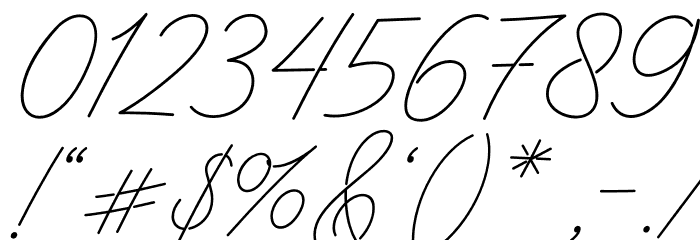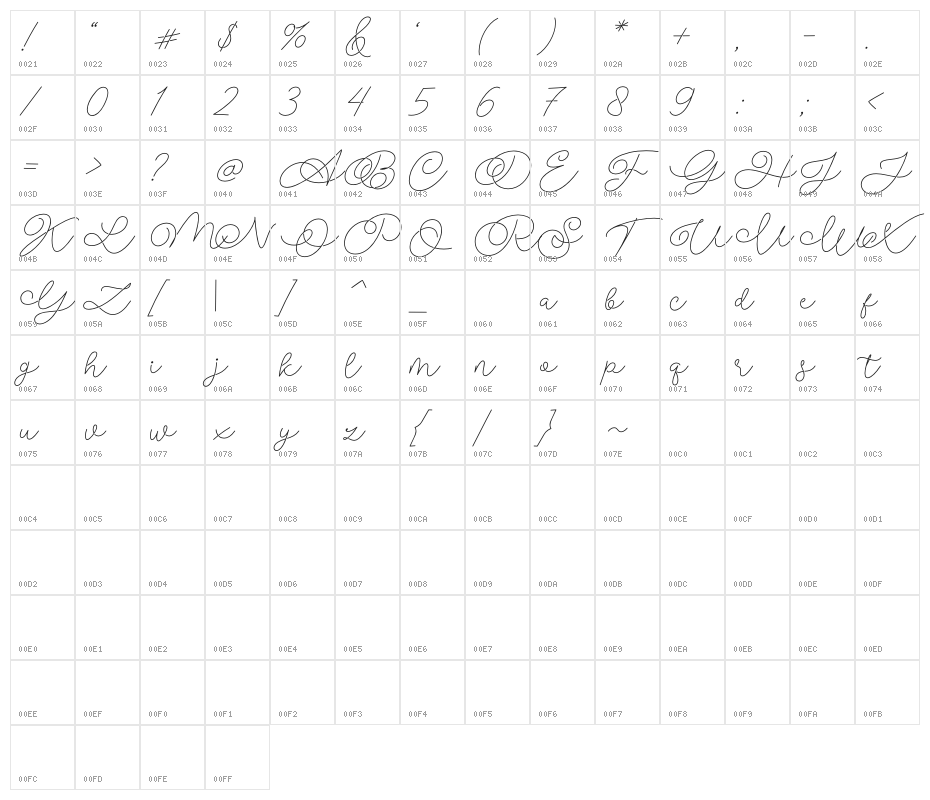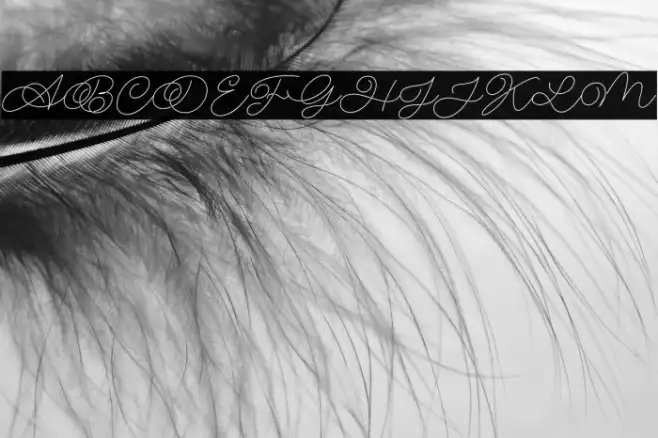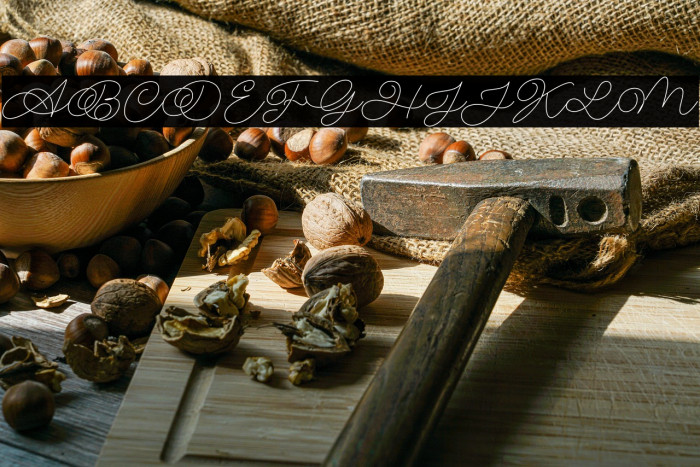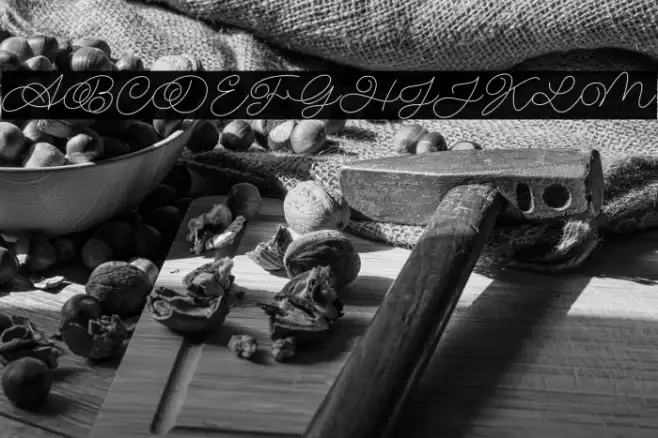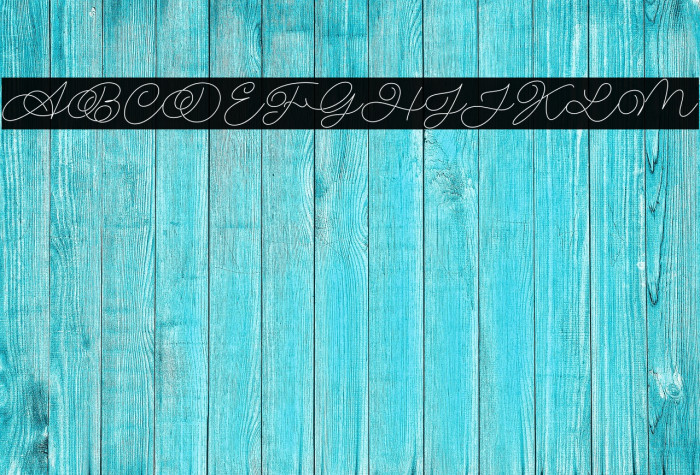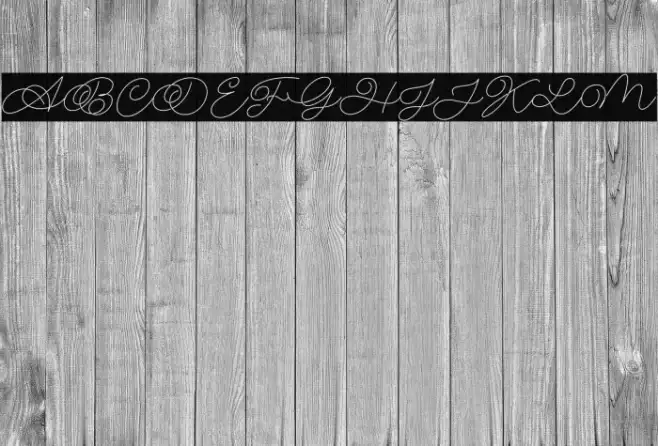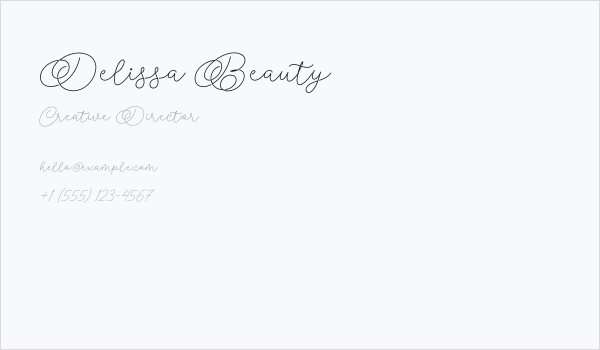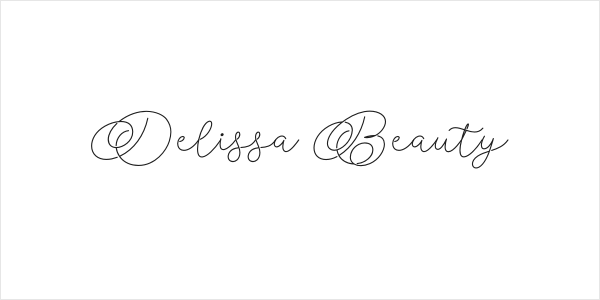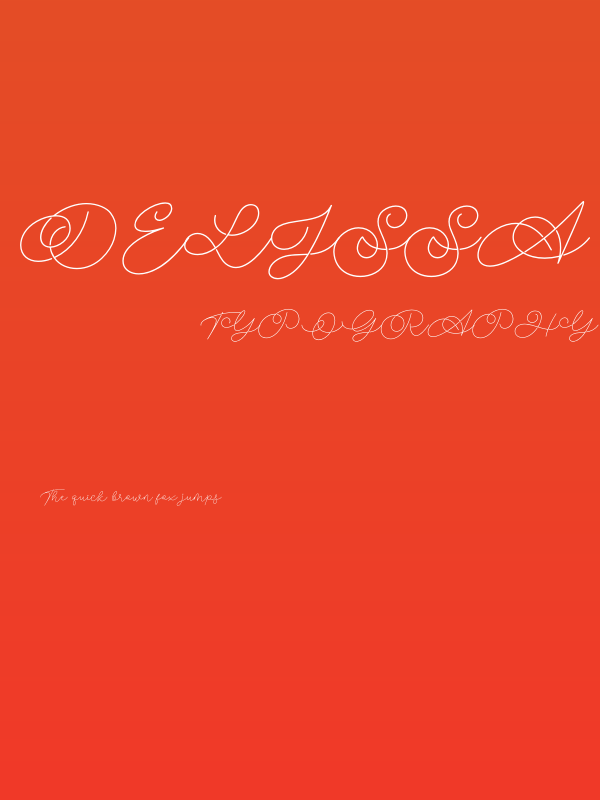
Delissa Beauty Font
Delissa Beauty Description
This elegant script font features a flowing, cursive style with smooth, continuous strokes that create a sense of fluidity and grace. The uppercase letters are ornate and slightly larger, providing a beautiful contrast to the more delicate lowercase letters. The numbers and special characters maintain the same cursive style, ensuring consistency throughout. This font is perfect for adding a touch of sophistication and charm to any design, making it ideal for invitations, branding, and decorative projects. Its thin lines and gentle curves give it a refined and stylish appearance, suitable for both modern and classic themes.
| Use Case | Invitations, Branding, Decorative |
| Proposed Projects | Ideal for wedding invitations, branding, greeting cards, and decorative design projects. |